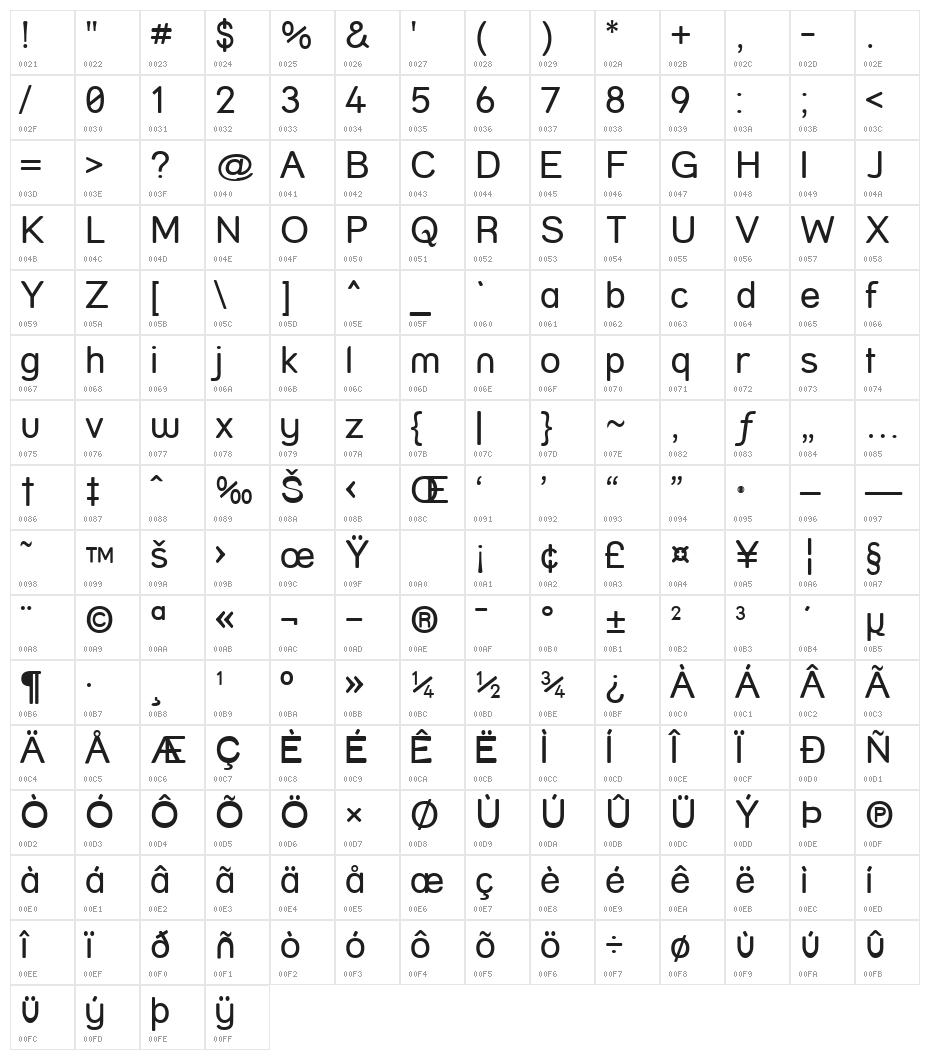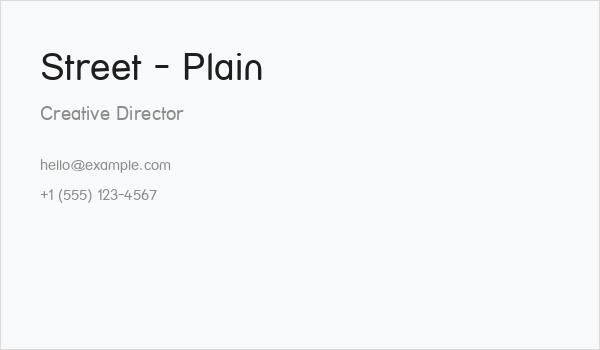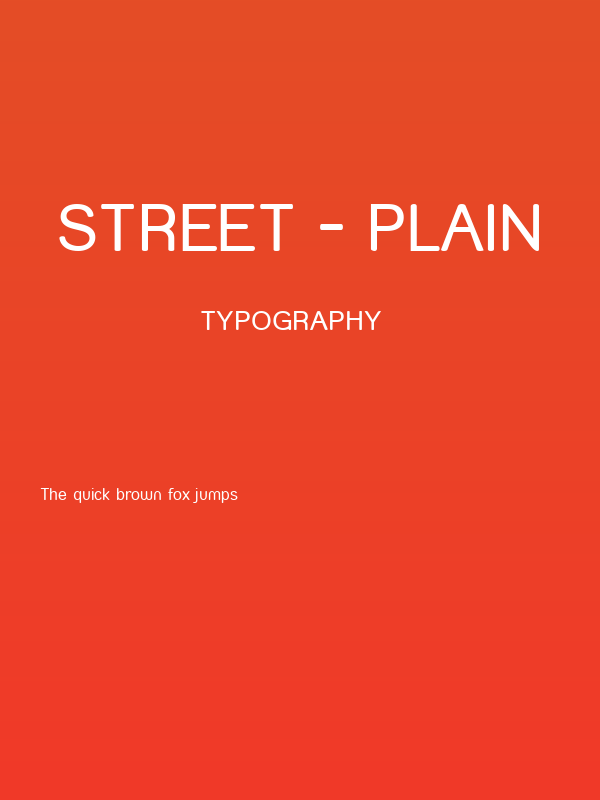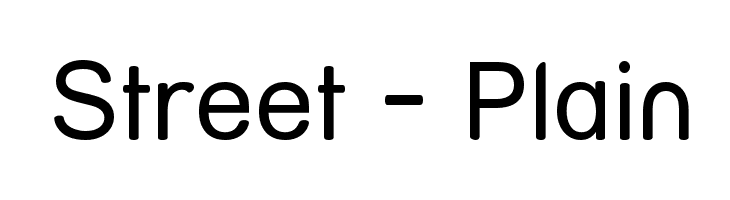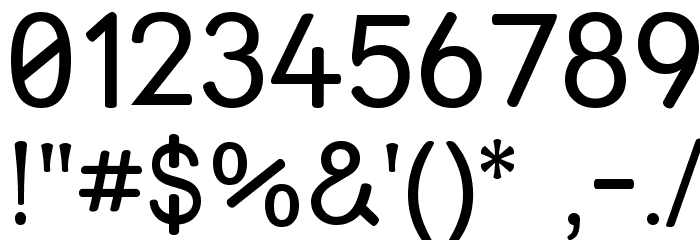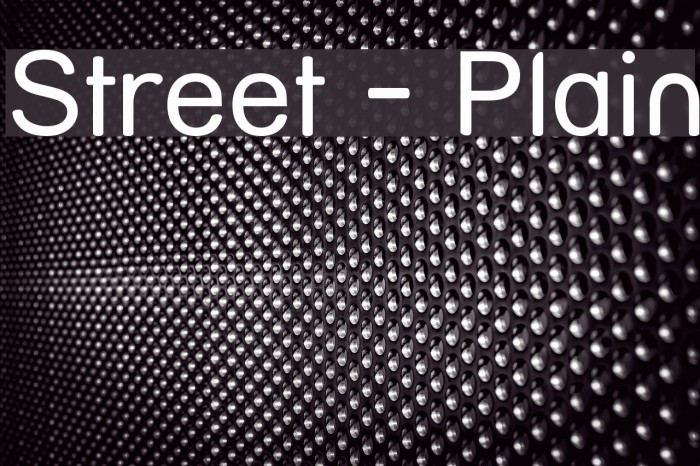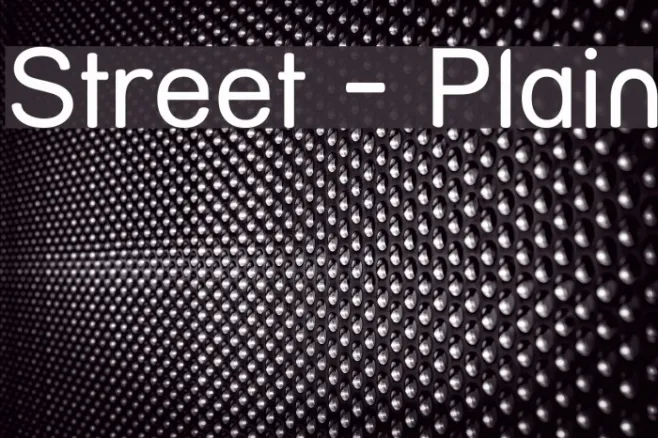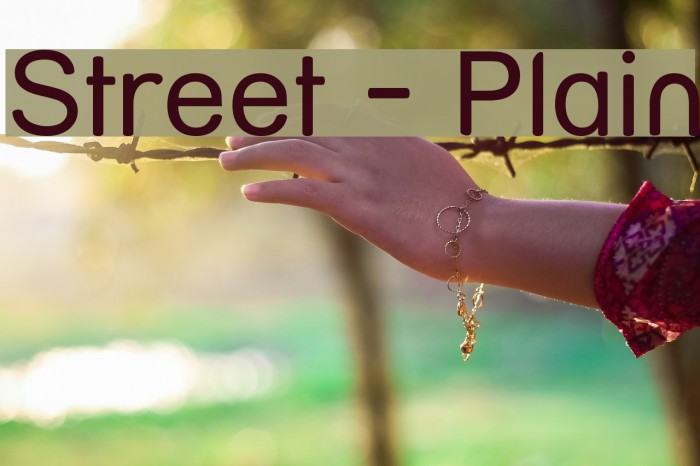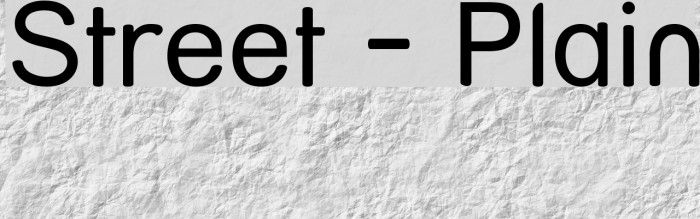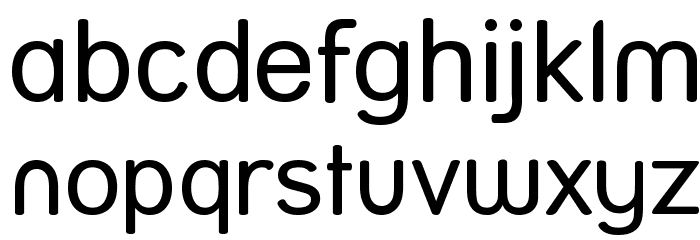
Street - Plain Font
This font features a clean and modern sans-serif style with a uniform stroke width, giving it a sleek and contemporary appearance. The characters are well-proportioned with a geometric influence, evident in the circular shapes of the 'O' and '0', as well as the symmetrical design of letters like 'A' and 'V'. The lowercase letters maintain a consistent height, contributing to a harmonious and balanced look. The numerals are clear and legible, making them suitable for various applications. Special characters are designed with the same attention to detail, ensuring they integrate seamlessly with the rest of the font.
| Proposed Projects | Ideal for branding, web design, user interfaces, and print media where clarity and modernity are essential. |